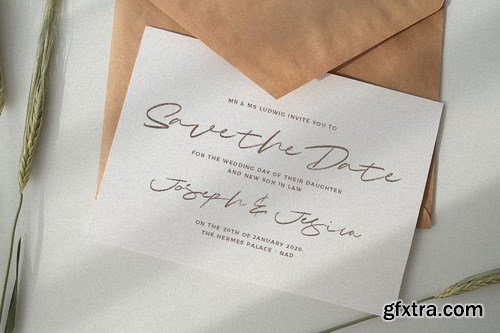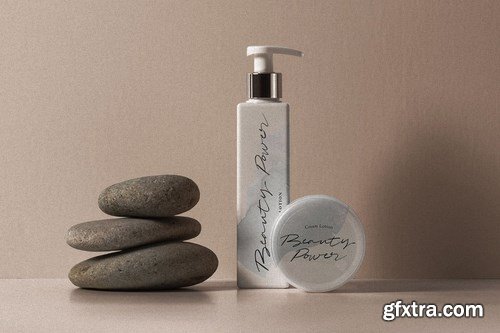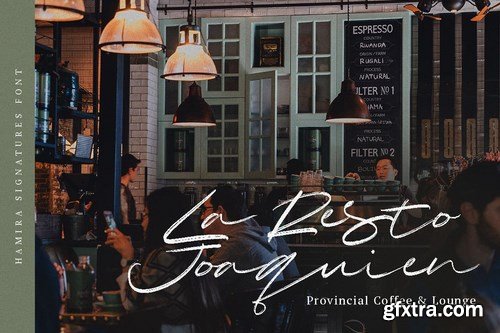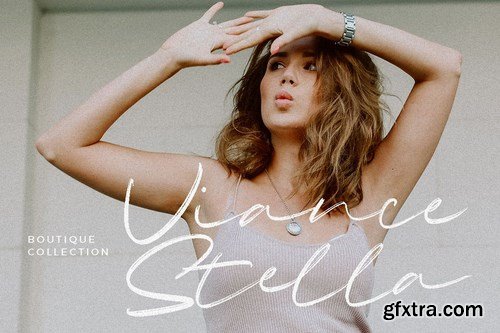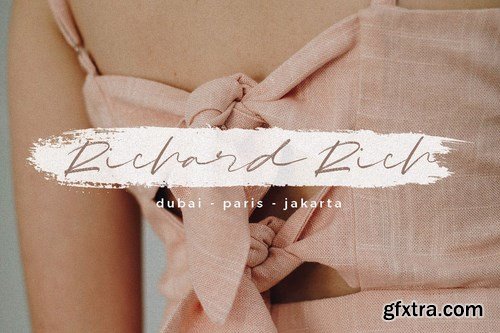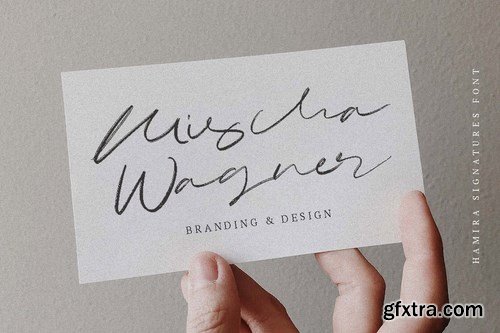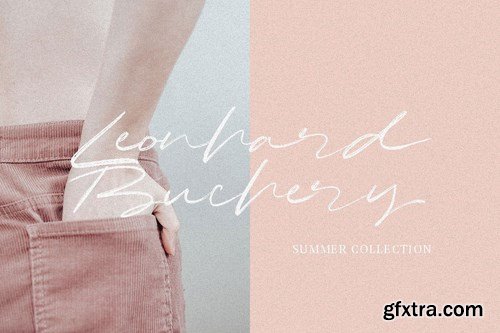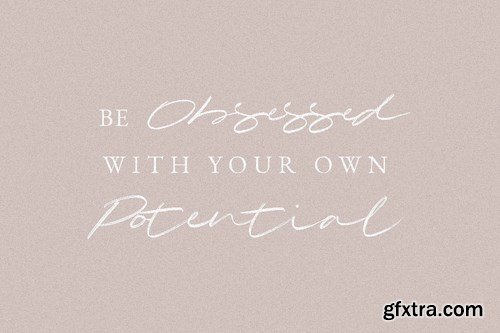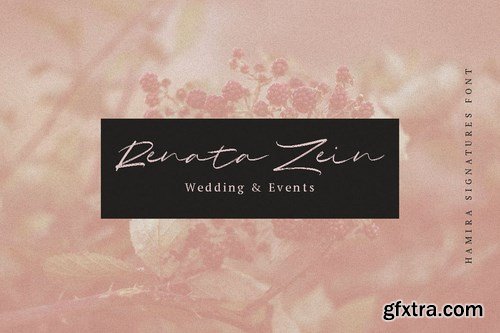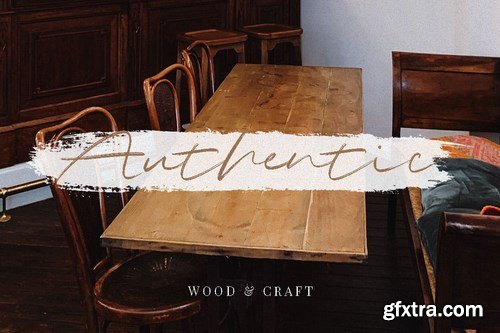
Hamira Script is perfect for branding projects, logo, wedding designs, social media posts, advertisements, product packaging, product designs, label, photography, watermark, invitation, stationery and any projects that need handwriting taste.